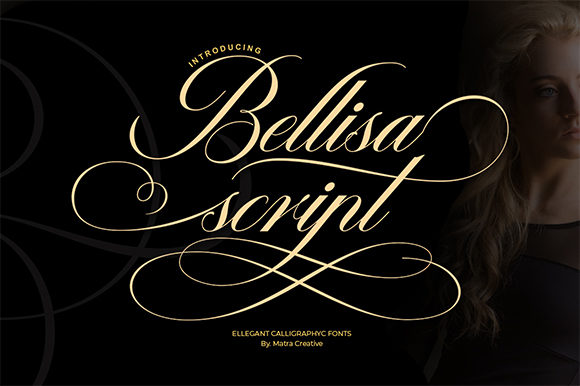
Unleash the enchanting beauty of Bellisa Script Font, a masterpiece crafted by Matra Creative. Experience the elegance and charm of this script font, inspired by classic typography yet radiating a unique and captivating style. Bellisa Script's mesmerizing curves and graceful strokes will elevate your designs to new heights.
Immerse yourself in the versatility of Bellisa Script, a font that effortlessly adapts to a myriad of projects. Whether you're crafting elegant headers, captivating logos, or enchanting branding, this font will add a touch of sophistication and allure to your creations. Its seamless flow and stunning alternates allow you to express your creativity in countless ways.
Indulge in the exquisite details of Bellisa Script, meticulously designed with a range of stylistic alternates and stunning ornaments. Explore the hidden treasures within this font, unlocking infinite possibilities for customization. Create designs that radiate individuality, capturing the essence of your brand or project with finesse.
With its PUA encoding, Bellisa Script grants you effortless access to a plethora of captivating glyphs and swashes. Unleash your imagination and incorporate these elements seamlessly into your designs, adding layers of depth and intrigue. Elevate your projects beyond the ordinary and make a lasting impression with Bellisa Script.